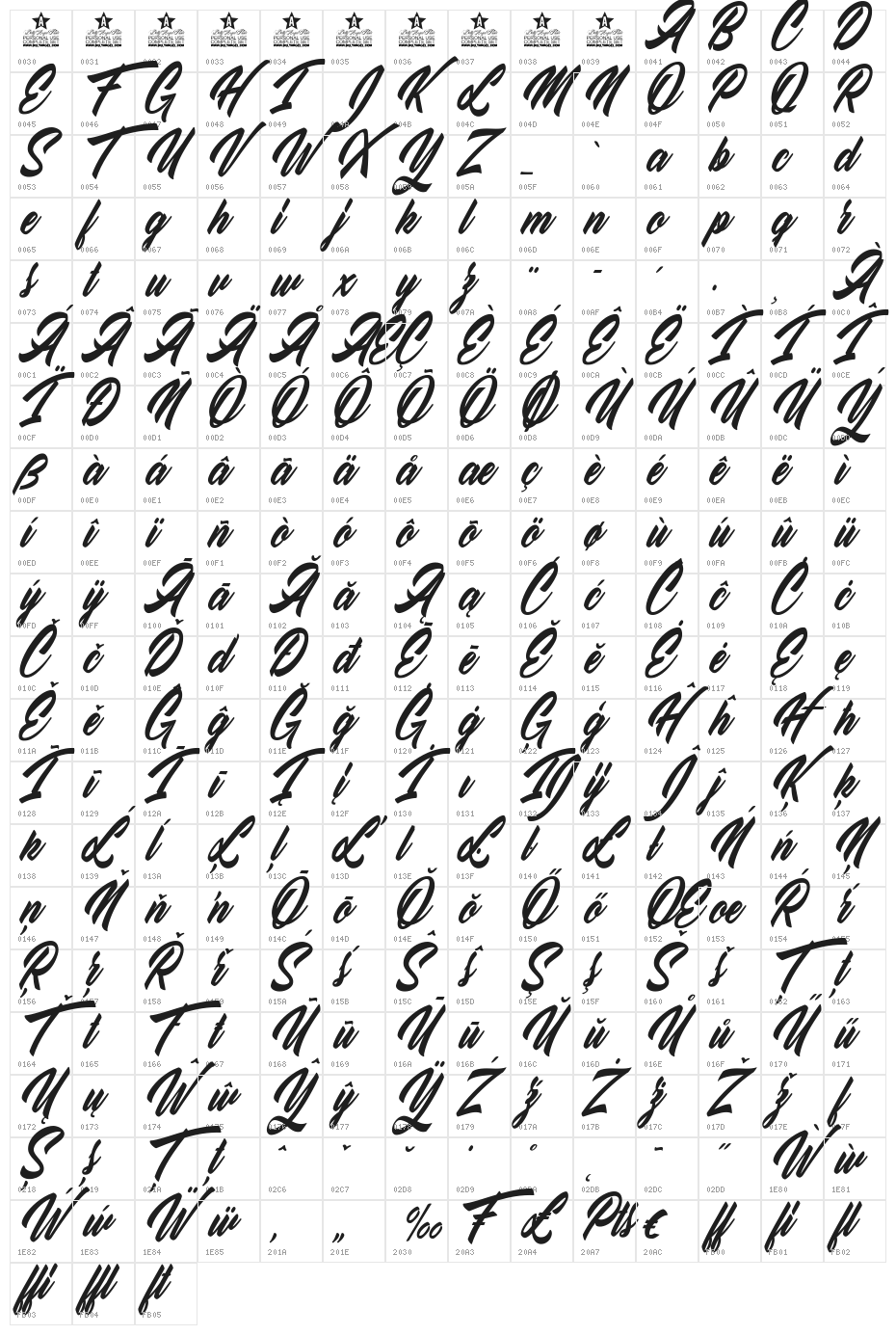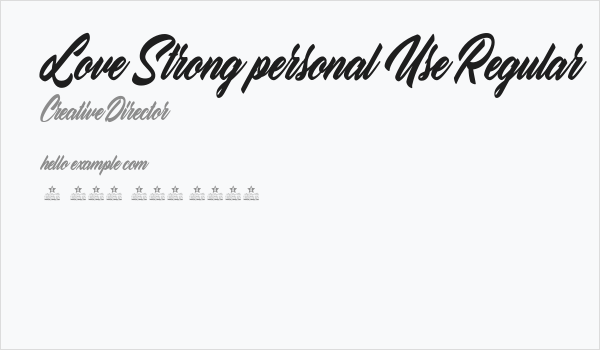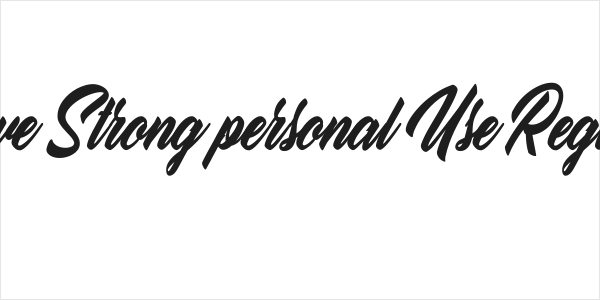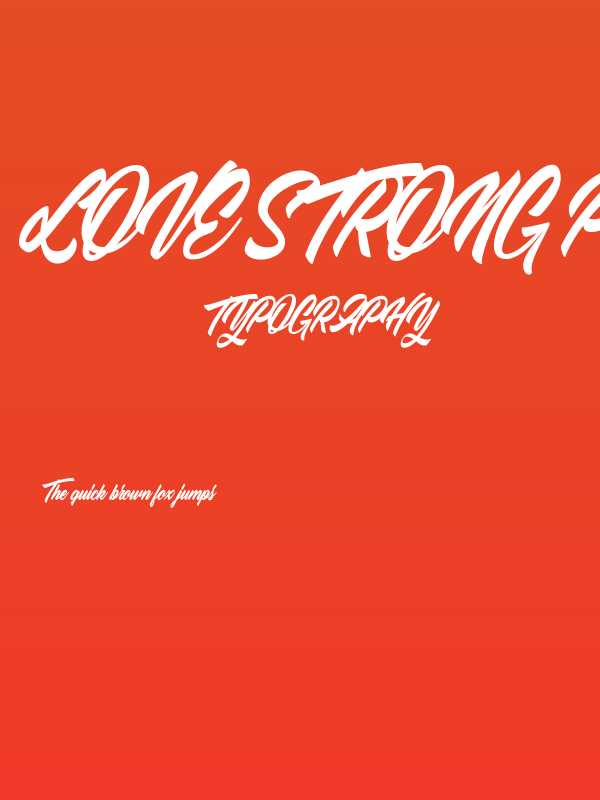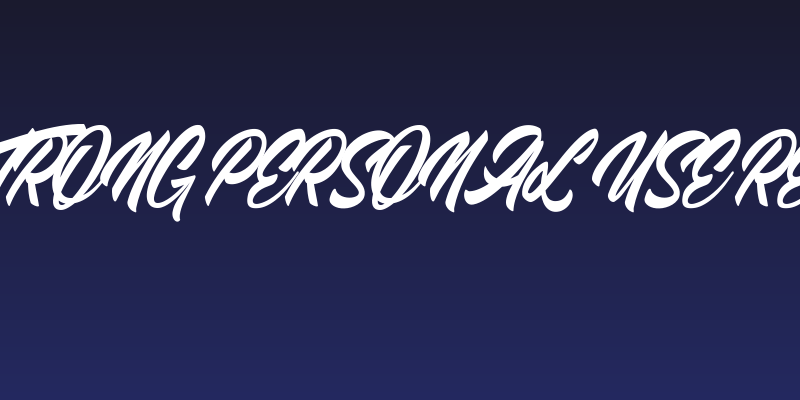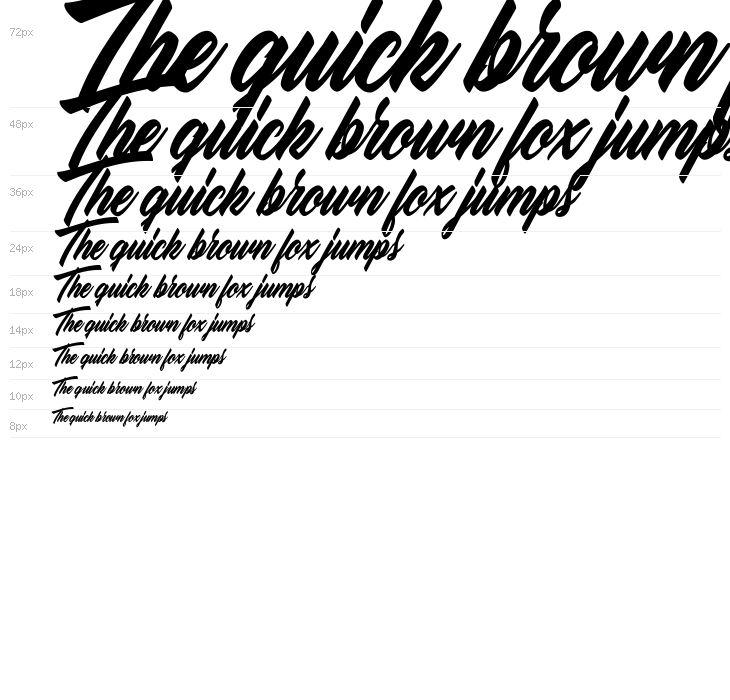
Love Strong personal Use Regular Font
Love Strong personal Use Regular Description
This font features a bold and dynamic script style, characterized by its flowing, cursive letters that convey a sense of energy and movement. The strokes are thick and consistent, providing a strong visual impact. Each letter is intricately connected, enhancing the fluidity and continuity of the text. The uppercase letters are particularly striking, with dramatic flourishes and loops that add a touch of elegance and sophistication. The lowercase letters maintain the same level of detail and are designed to seamlessly connect with one another, creating a harmonious and cohesive appearance. The font's overall aesthetic is both modern and expressive, making it suitable for a variety of creative applications.
| Proposed Projects | Ideal for branding, logo design, invitations, and expressive headlines. |